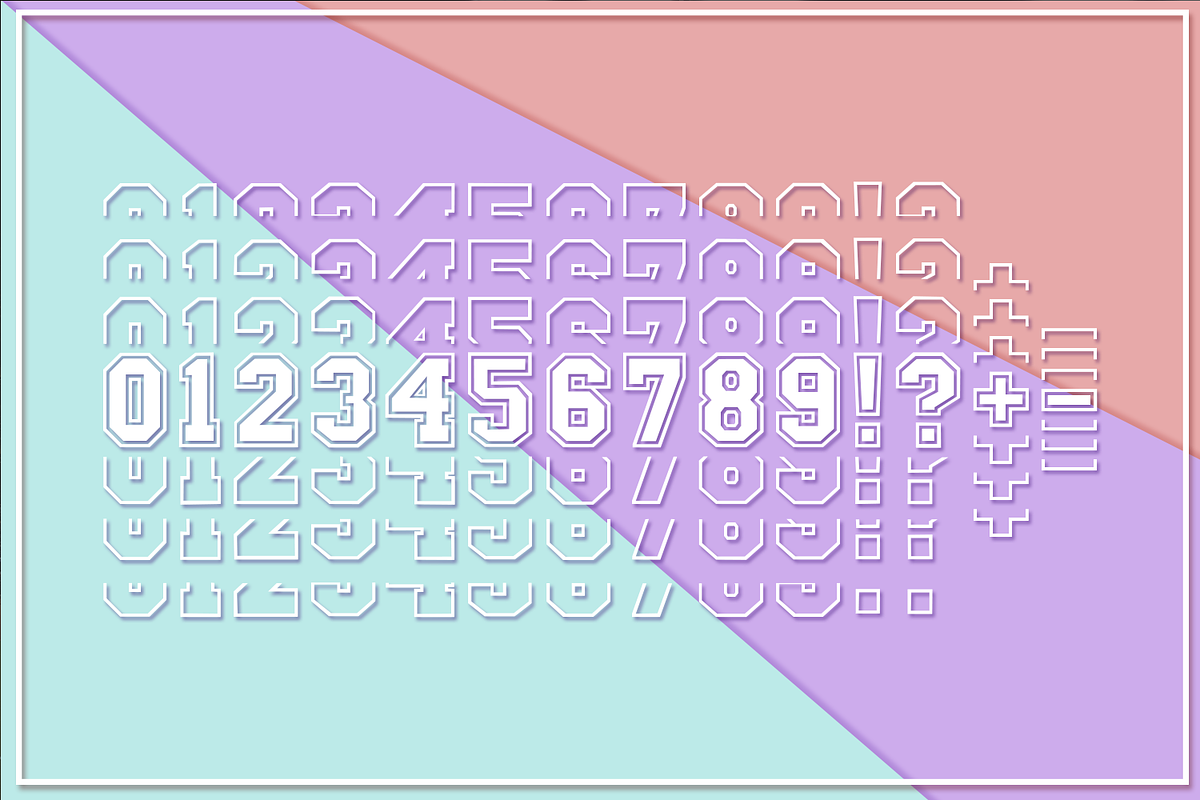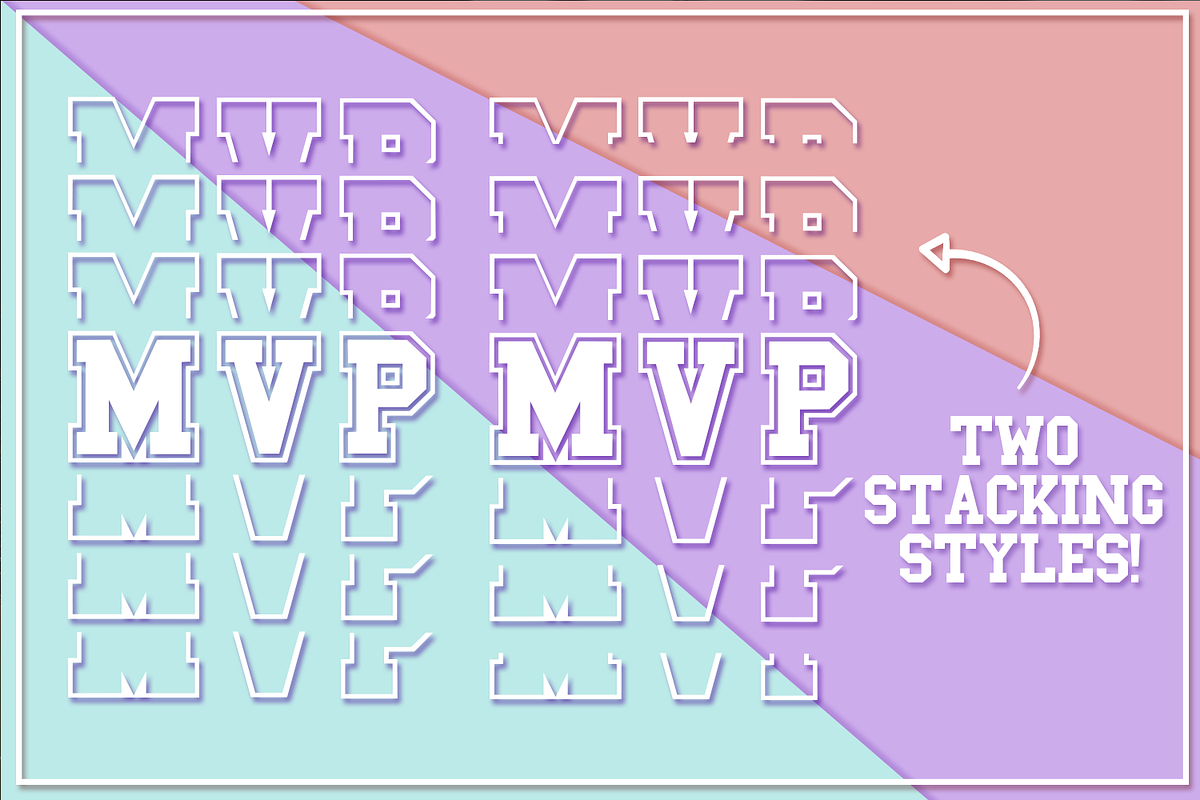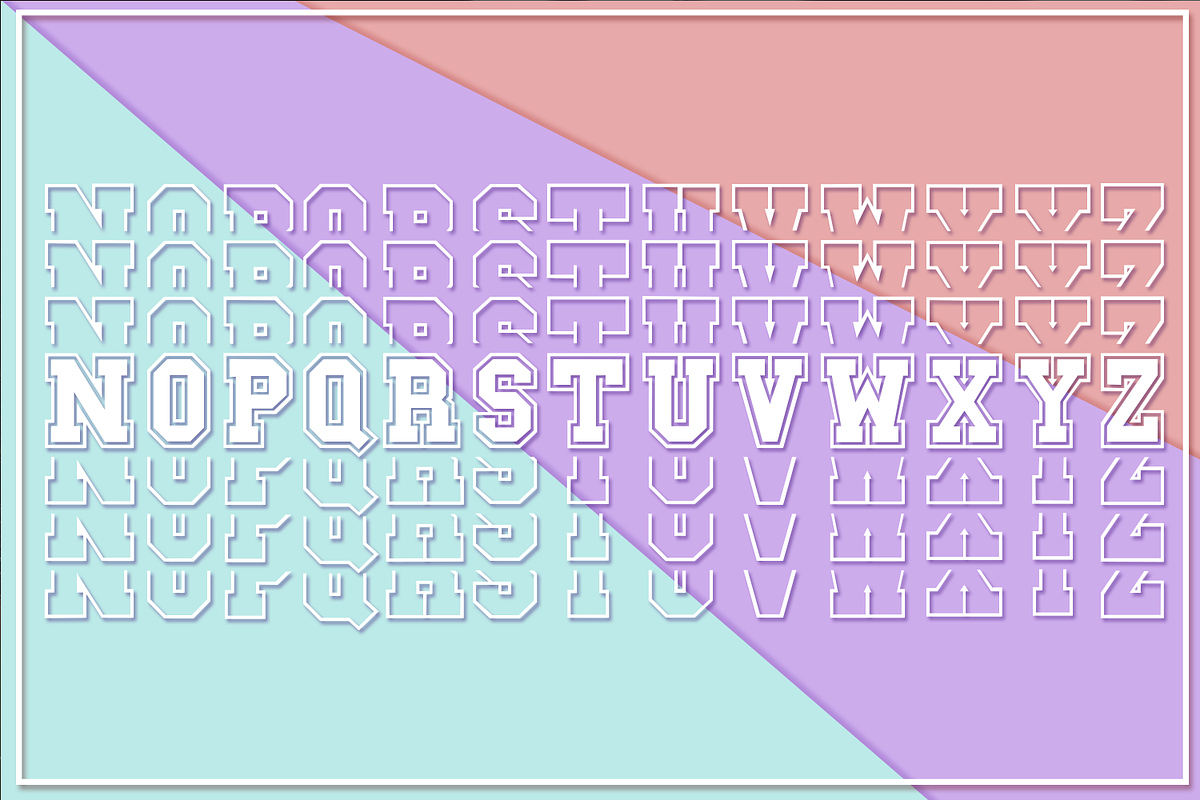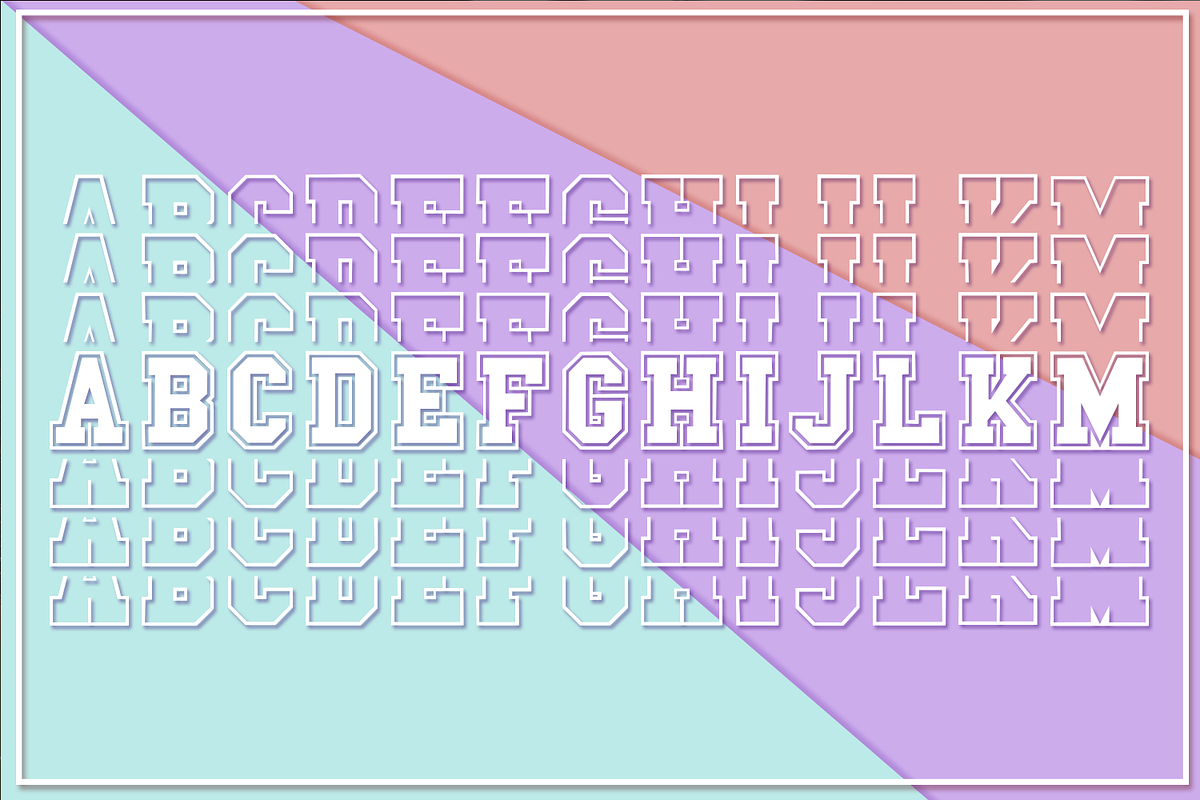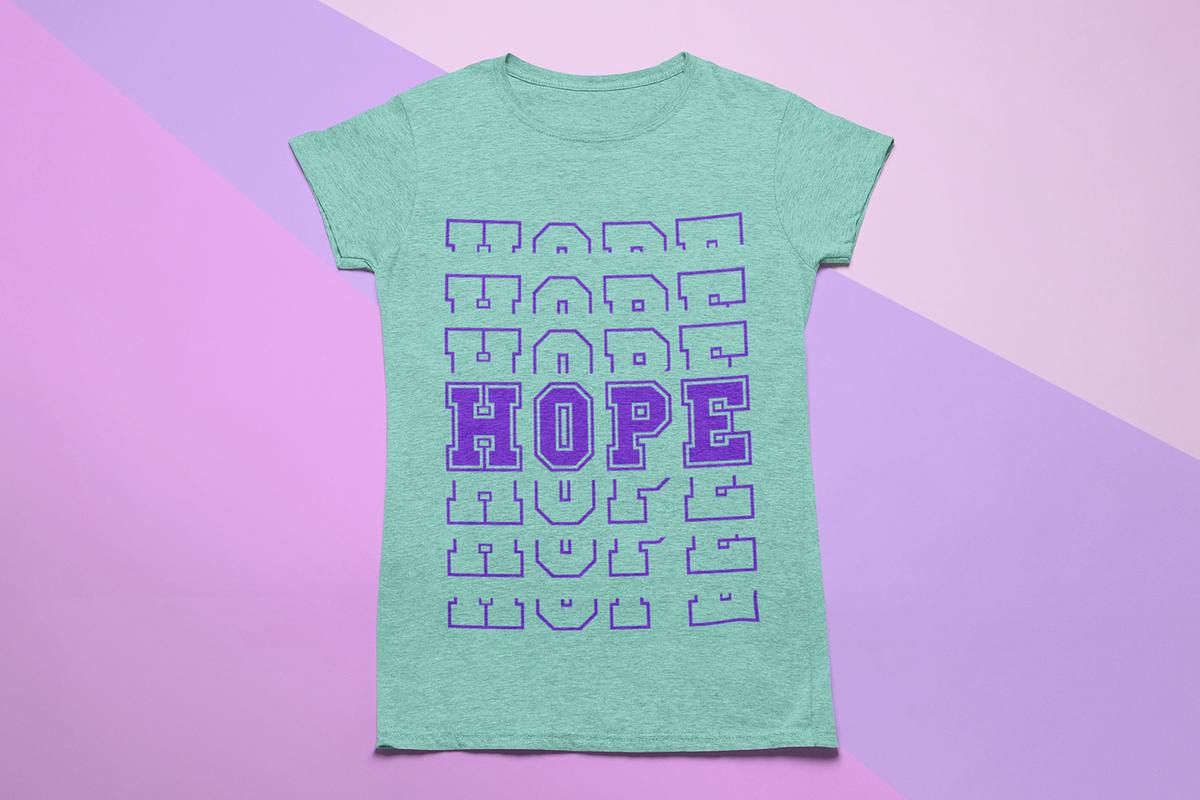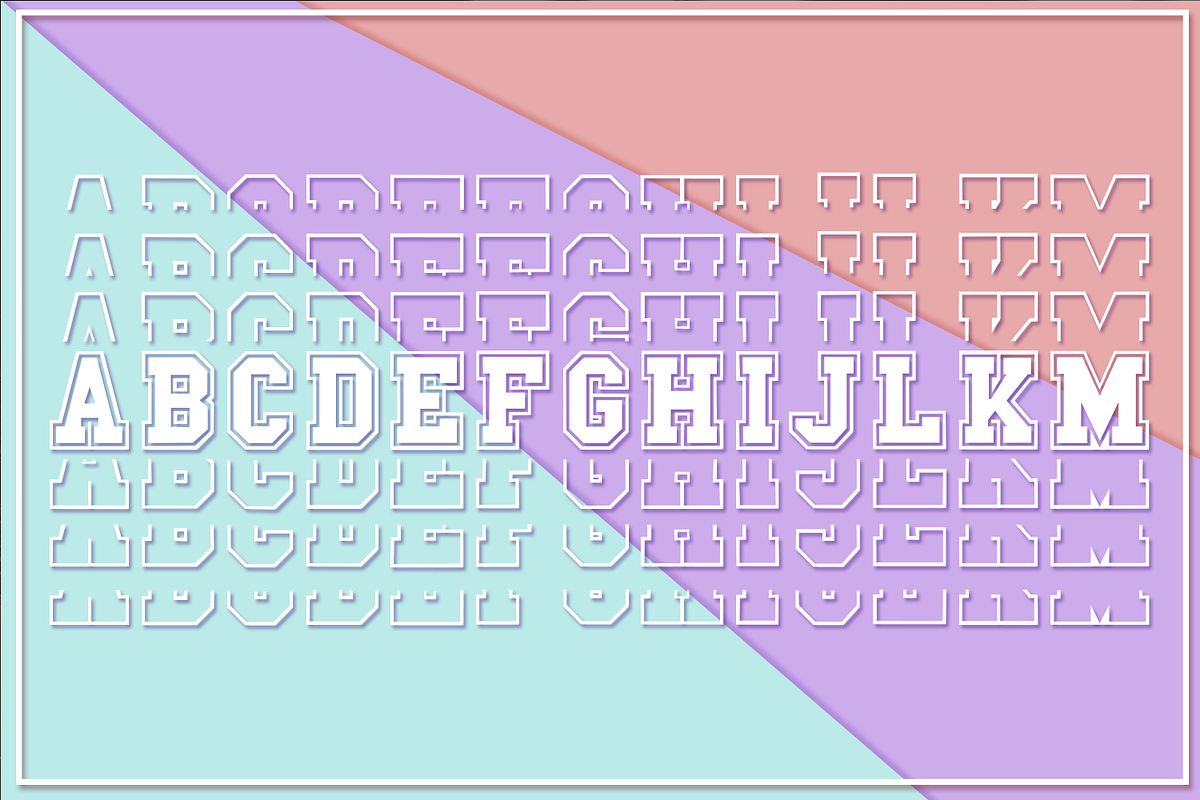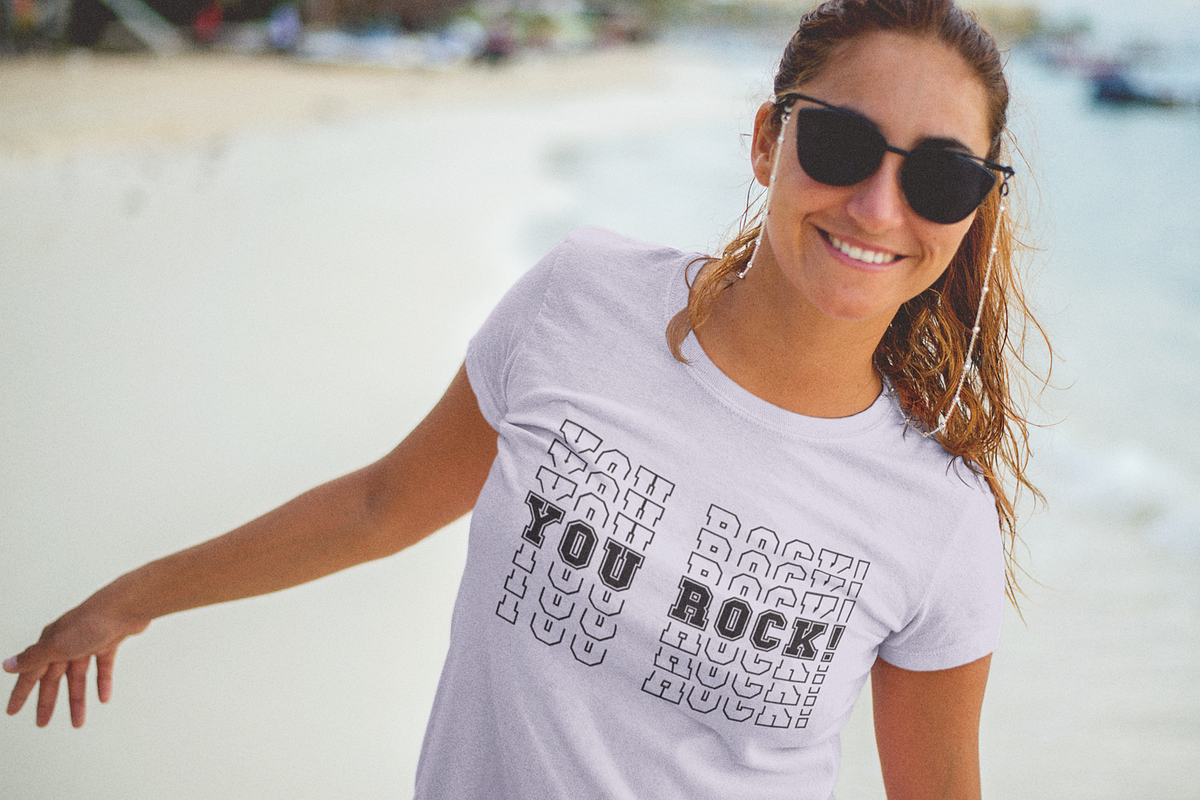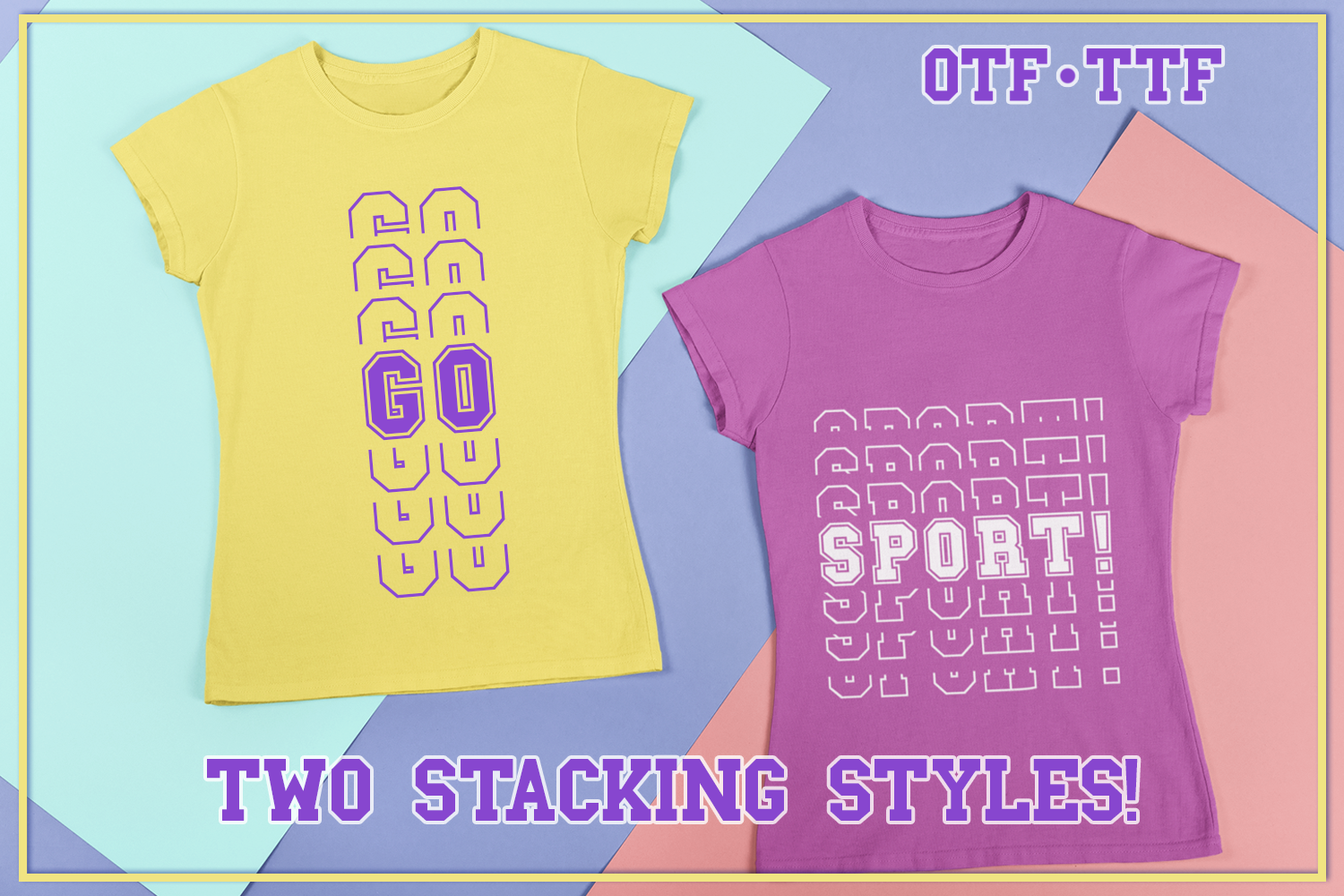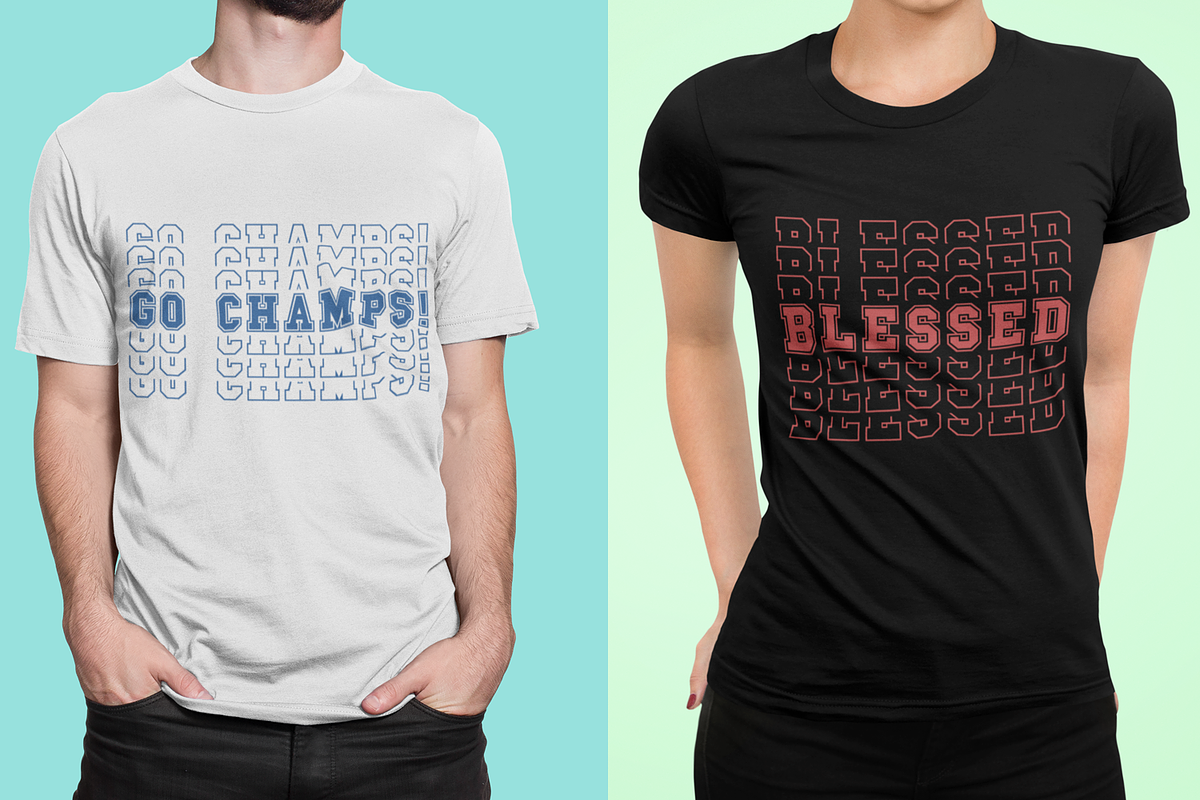
Go Sports Stacked Mirror Font
Since both sports fonts and mirror/stacked fonts are in such a huge demand right now, I decided to create a mirror font derived from my Sports Fonts Pack. There are various styles of stacked designs, but I chose these two. I'll call them Regular and Alternate.
Go Sports Regular is just what it says it is. A stacked sports font with mirrored outlines above and under the main letter.
Go Sports Alternate is a bit more complex. The second and third row of the mirrored letters are smaller and at a bigger distance from the previous row. This gives this font a different feel, with the letters almost disappearing. Besides the aesthetical part, this version is also a lot easier to read!
It is a handcrafted font created from scratch, using as little points as possible to ensure you get the best results with minimum difficulty.